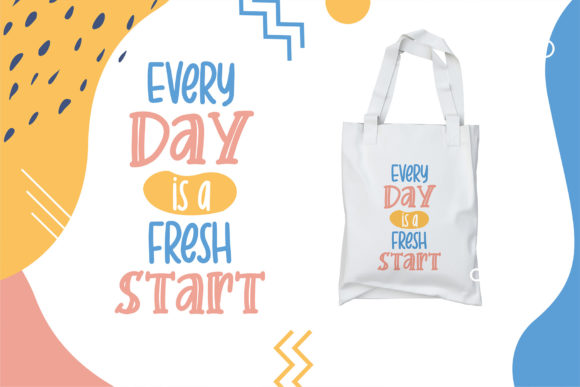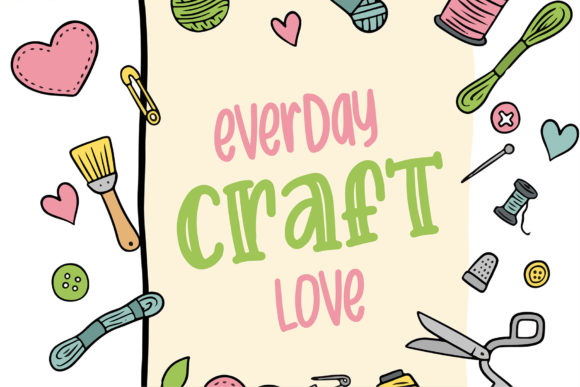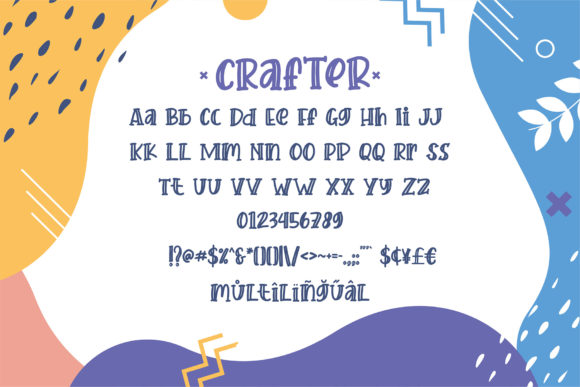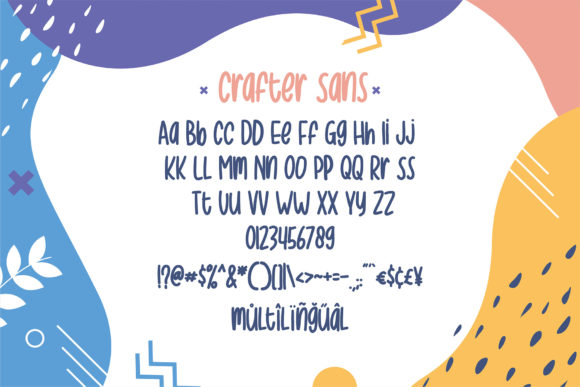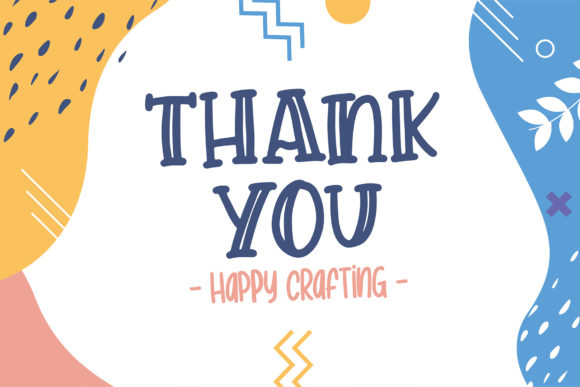
Crafter Font: Unleash Your Creativity with this Charming Handcrafted Font Duo
Are you a designer, crafter, or DIY enthusiast looking for a font that captures the essence of handmade charm? Look no further than Crafter Font, a delightful duo of handcrafted fonts that exude uniqueness and playfulness. In this article, we’ll dive into the world of Crafter Font, exploring its features, benefits, and uses, and why it’s the perfect addition to your creative toolkit.
The Story Behind Crafter Font
Crafter Font is a carefully crafted duo of fonts, designed to evoke the feeling of handmade authenticity. Each letter, curve, and line has been meticulously drawn to create a sense of warmth and personality. The result is a font that feels approachable, friendly, and full of character. Whether you’re working on a craft blog, a DIY project, or a creative business, Crafter Font is the perfect choice to add a touch of whimsy and charm.
What Makes Crafter Font So Special?
So, what sets Crafter Font apart from other fonts? Here are just a few features that make it truly special:
- Handcrafted with love: Each letterform has been carefully drawn by hand, giving Crafter Font its unique, human touch.
- Unique and playful: Crafter Font has a quirky, offbeat charm that’s perfect for adding personality to your designs.
- Authentic charm: Crafter Font captures the essence of handmade craftsmanship, making it perfect for crafty projects and DIY designs.
- Versatile: With two font styles to choose from, Crafter Font can be used for a wide range of projects, from blogs and social media graphics to packaging and branding.
Using Crafter Font in Your Designs
Crafter Font is incredibly versatile, making it suitable for a wide range of design projects. Here are just a few ideas to get you started:
- Craft blog or website: Add a touch of personality to your blog or website with Crafter Font, perfect for headings, titles, and captions.
- Social media graphics: Create eye-catching social media graphics, quotes, and posters with Crafter Font’s playful, handcrafted charm.
- DIY projects: Use Crafter Font to add a personal touch to your DIY projects, such as handmade cards, gift tags, and craft tutorials.
- Branding and packaging: Incorporate Crafter Font into your branding and packaging design to add a touch of whimsy and personality.
Tips for Getting the Most Out of Crafter Font
Here are a few tips for getting the most out of Crafter Font:
- Experiment with font pairings: Try pairing Crafter Font with other fonts to create interesting and unique combinations.
- Play with colors and textures: Add depth and interest to your designs by experimenting with different colors and textures.
- Use it sparingly: Use Crafter Font to add emphasis and personality to your designs, but don’t be afraid to use it sparingly to avoid overwhelming your design.
In conclusion, Crafter Font is a delightful duo of handcrafted fonts that are sure to ignite your creativity and add a touch of charm to your designs. With its unique, playful, and authentic charm, Crafter Font is the perfect choice for designers, crafters, and DIY enthusiasts looking to add a personal touch to their projects. So why wait? Download Crafter Font today and unleash your creativity!